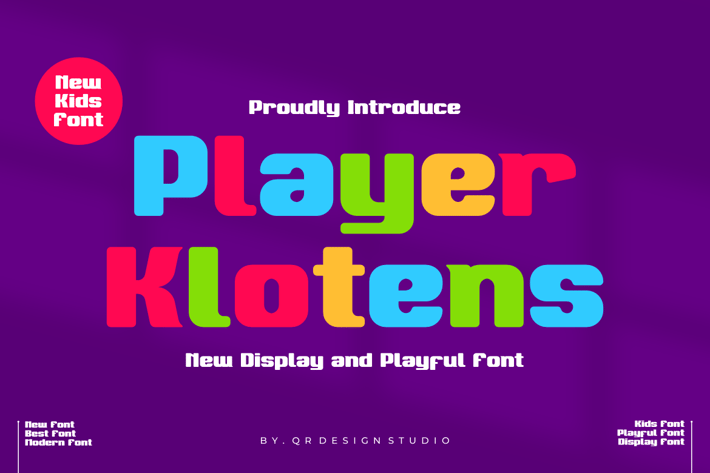
Player Klotens - Playful Font
Player Klotens - Playful Font is a bold and authentic display font.
The font is suitable for any branding project like kids, food, playful, cute, poster, logo, sport, and many more.